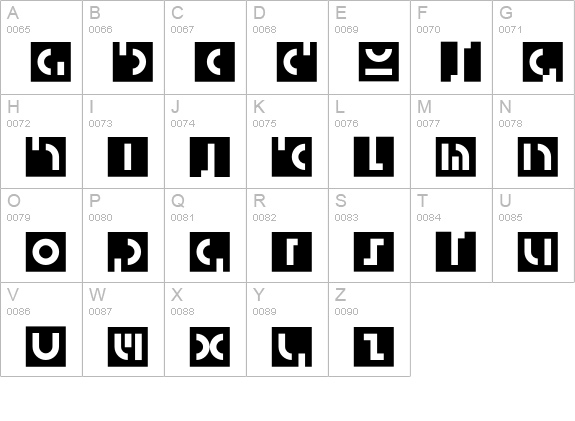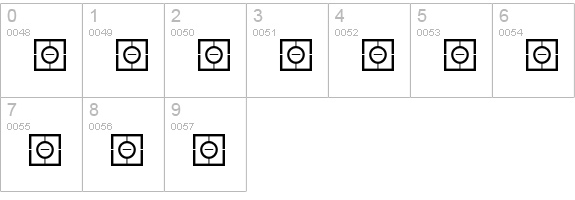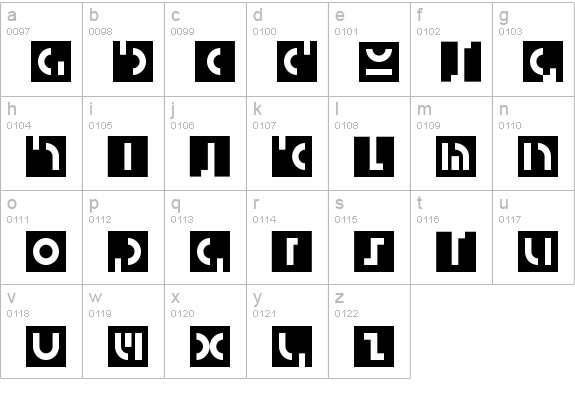
AlphaBloc-Stencil Font Details
AlphaBloc-Stencil font is a modern and versatile typeface that combines sleek geometric shapes with a stencil design. Its bold and eye-catching appearance makes it suitable for a wide range of projects, from branding and advertising to posters and packaging. The clean lines and sharp edges of this font give it a contemporary and professional look that is sure to make a statement. What makes AlphaBloc-Stencil font even more appealing is that it is completely free to download. You can easily access this stylish font for your design needs at FontsMarket.com. Whether you are a graphic designer, a student, or a small business owner, AlphaBloc-Stencil font offers a high-quality and unique option for your projects without any cost. Download it today and add a touch of modern sophistication to your designs.